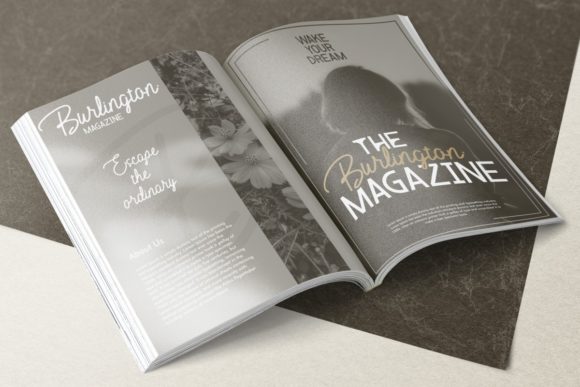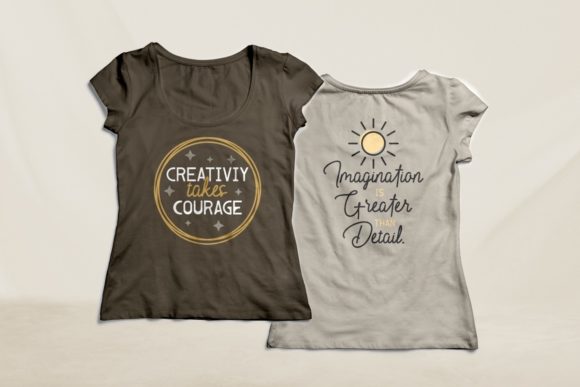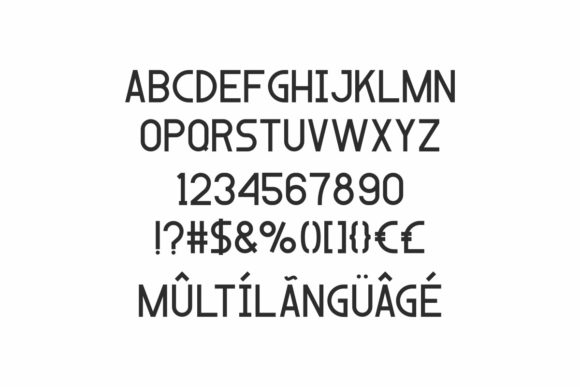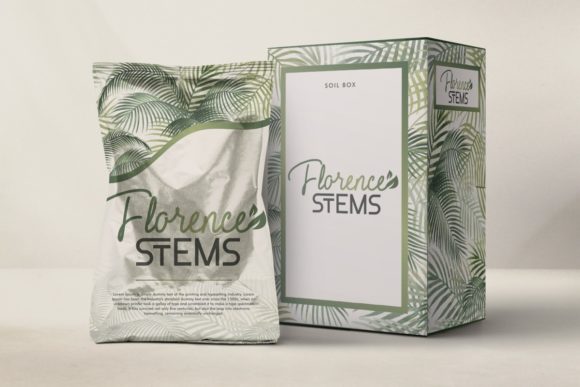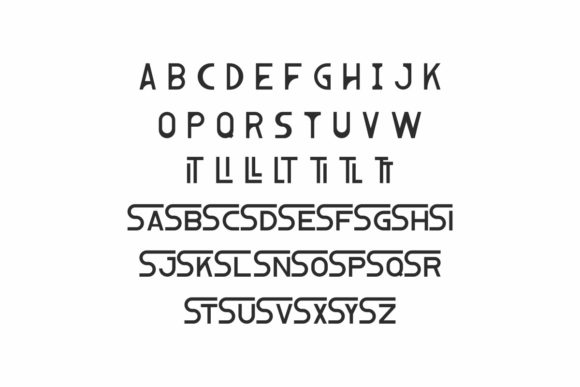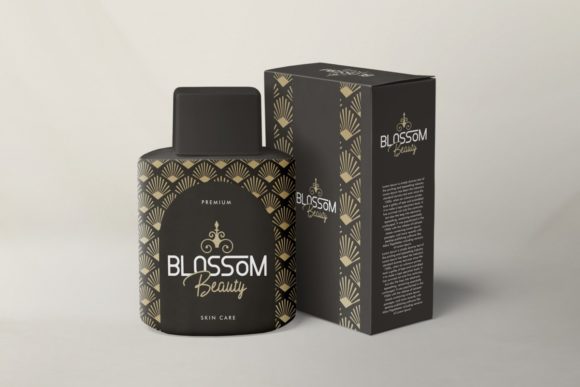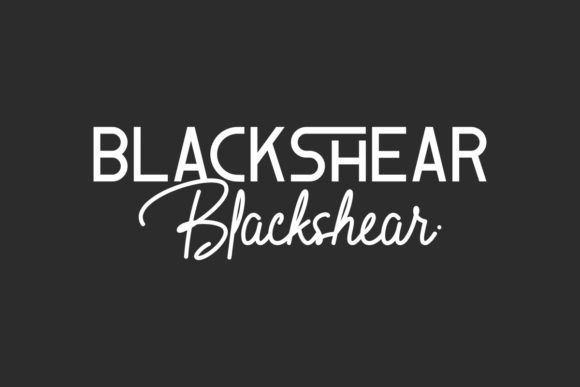
Discover the Elegance of Blackshear Font: A Versatile Duo for Design Enthusiasts
In the vast world of typography, finding the perfect font that captures the essence of your design can be a daunting task. However, for those seeking a blend of elegance and versatility, the Blackshear Font stands out as an exceptional choice. This lovely duo font, consisting of a script and display font, is designed to cater to a wide range of design needs, making it a valuable addition to any designer’s toolkit.
What Makes Blackshear Font Special?
Blackshear Font is not just any ordinary font; it’s a carefully crafted duo that brings a versatile vibe to the table. This versatility is key to its appeal, as it seamlessly fits into a large design pool, accommodating various styles and themes. Whether you’re working on a sophisticated branding project, an elegant wedding invitation, or a bold display advertisement, Blackshear Font adapts with ease, ensuring your design looks cohesive and visually appealing.
PUA Encoding: Unlocking Full Potential
One of the standout features of Blackshear Font is its PUA (Private Use Area) encoding. This encoding allows designers to access all the glyphs and swashes with ease, offering unparalleled flexibility in customizing and fine-tuning their designs. With PUA encoding, you can effortlessly navigate through the font’s extensive library of characters and decorative elements, ensuring that your design not only looks great but also tells a story through its typography.
Applications of Blackshear Font
The applications of Blackshear Font are vast and varied, making it a go-to choice for many design enthusiasts. Here are a few examples:
- Branding and Logotypes: The elegant script and bold display fonts can be used to create memorable logos and brand identities that stand out.
- Wedding and Event Stationery: Add a touch of sophistication to your wedding invitations, save-the-dates, and other event materials with the font’s graceful and refined appearance.
- Advertising and Marketing: The display font’s bold and eye-catching design makes it perfect for headlines and titles in advertisements, posters, and digital banners.
- Packaging and Product Design: Use Blackshear Font to add a personal touch to product labels, packaging, and branding materials, making your products more appealing to customers.
Tips for Getting the Most Out of Blackshear Font
To truly leverage the potential of Blackshear Font, consider the following tips:
- Mix and Match: Combine the script and display fonts to create visual hierarchy and add depth to your designs.
- Experiment with Swashes: Take advantage of the PUA encoding to explore the font’s swashes and glyphs, adding a unique flair to your typography.
- Play with Colors: While the font itself is a stunning feature, don’t forget to experiment with different colors and textures to further enhance your designs.
Blackshear Font is more than just a font; it’s a design companion that offers versatility, elegance, and a creative edge. Its PUA encoding and the duo’s script and display fonts make it an indispensable tool for designers and crafters looking to elevate their projects. Whether you’re a professional designer or a DIY enthusiast, Blackshear Font is sure to inspire and enhance your designs, helping you to create something truly special.
So, dive into the world of Blackshear Font and discover how this lovely duo can transform your designs, adding a touch of sophistication and charm that sets them apart.